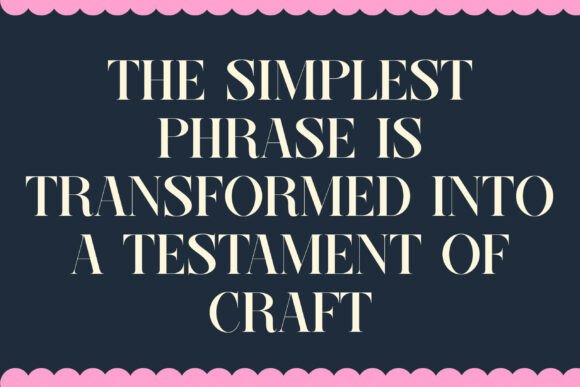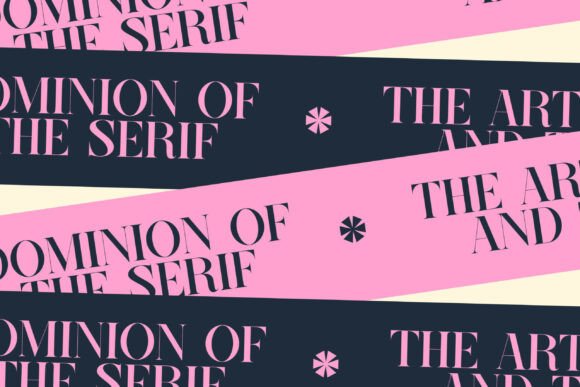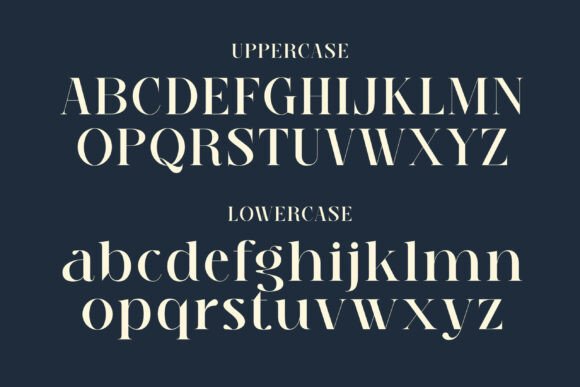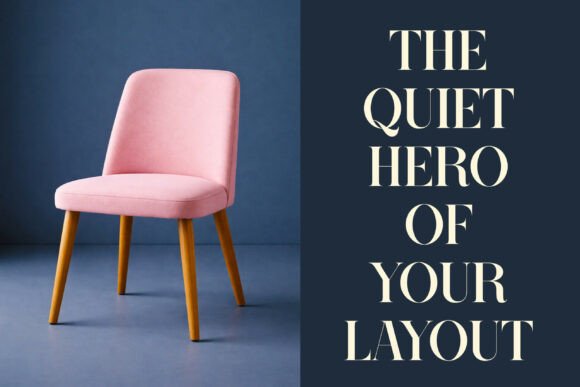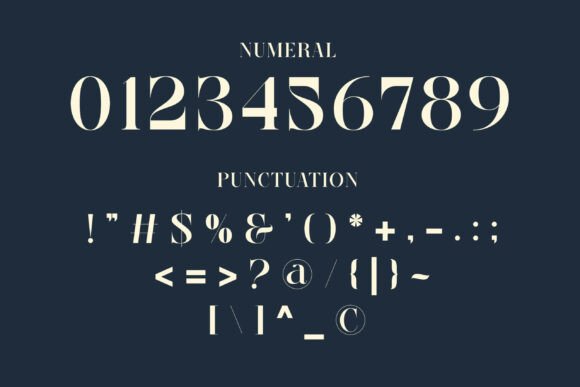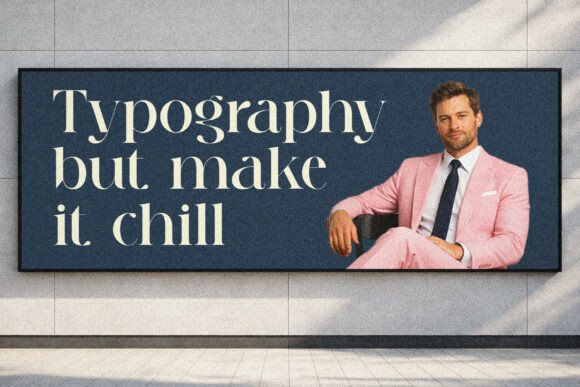
Introduction to Merlya Font
Have you ever been working on a design project, pouring your heart and soul into every detail, only to feel like something’s missing? That’s when you need a little magic to elevate your creative vision. For designers, finding the perfect font can be the game-changer that sets your project apart and leaves a lasting impression. Enter Merlya Font, a stunning serif display typeface that’s about to become your new secret weapon.
Merlya Font is more than just a design resource – it’s a key to unlocking a world of creative possibilities. With its unique blend of traditional structure and modern flair, this font is the perfect choice for designers looking to add a touch of sophistication and playfulness to their projects. Whether you’re working on a boutique cosmetic brand, high-end bakery packaging, or chic editorial headers, Merlya Font is sure to deliver.
Key Features of Merlya Font
- Unique, elegant design perfect for artistic and creative applications
Honest Review: Merlya Font
As a designer, I’m always on the lookout for high-quality design resources to elevate my creative projects. Recently, I came across the Merlya Font, and I’m excited to share my thoughts on this versatile font.
What works well: ✨ The Merlya Font has a beautiful, elegant design that’s perfect for creating a sophisticated look. Its clean lines, delicate curves, and subtle texture make it ideal for use in a variety of creative projects, from logos to brochures. The font is also available for free download, which is a huge plus for designers on a budget.
What’s lacking: ⚠️ While the Merlya Font is a great addition to any design resource collection, it’s not without its limitations. The font only comes in a few weights, which can make it difficult to achieve the desired level of contrast in certain designs. Additionally, the transparent background can sometimes make it tricky to use the font on busy backgrounds.
Overall, I’m impressed with the Merlya Font. Its high-quality design and free download make it a valuable asset for any designer. While it may not be perfect, it’s a great addition to any design resource collection, and I’d definitely recommend it to fellow designers.
- Perfect for creating a sophisticated look
- Delicate curves and subtle texture
Tips for Getting the Most Out of Merlya Font
Use the Merlya Font in conjunction with other design elements to create a cohesive look.
Experiment with different font sizes and colors to achieve the desired effect.
The Merlya Font is ideal for:
• Designing logos and branding materials
• Creating invitations and event materials
• Developing marketing materials and brochures